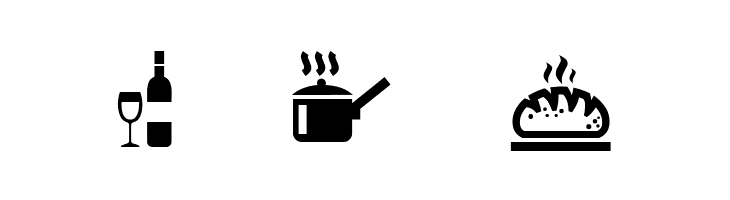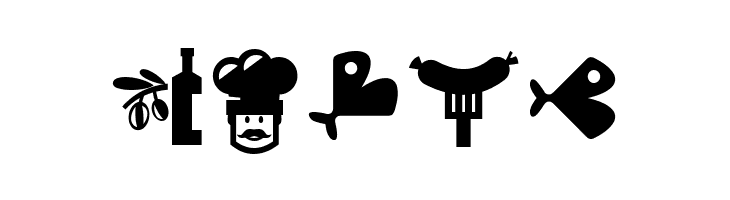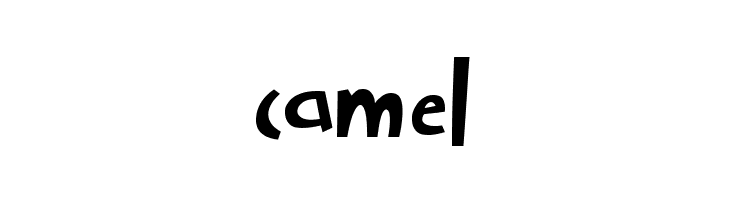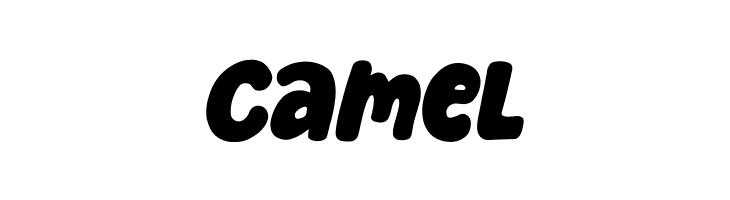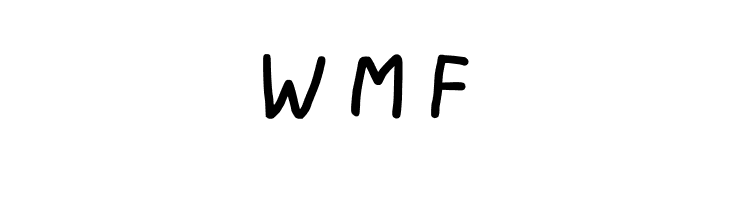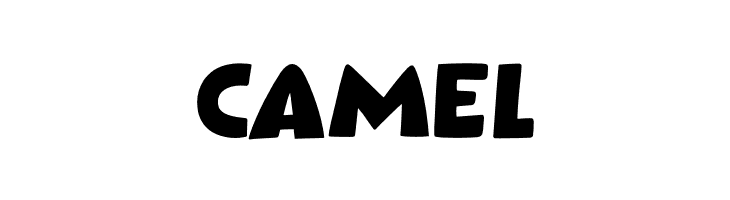
A playful, hand-drawn font with bold, uneven strokes and a whimsical style.
A bold icon font with food and kitchen motifs.
A playful, bold font with rounded, bubbly characters ideal for fun and informal designs.
A playful, informal handwritten font with rounded, slightly irregular letterforms.
A bold, decorative font with whimsical and vintage elements.
A bold, playful font with rounded characters and whimsical elements.